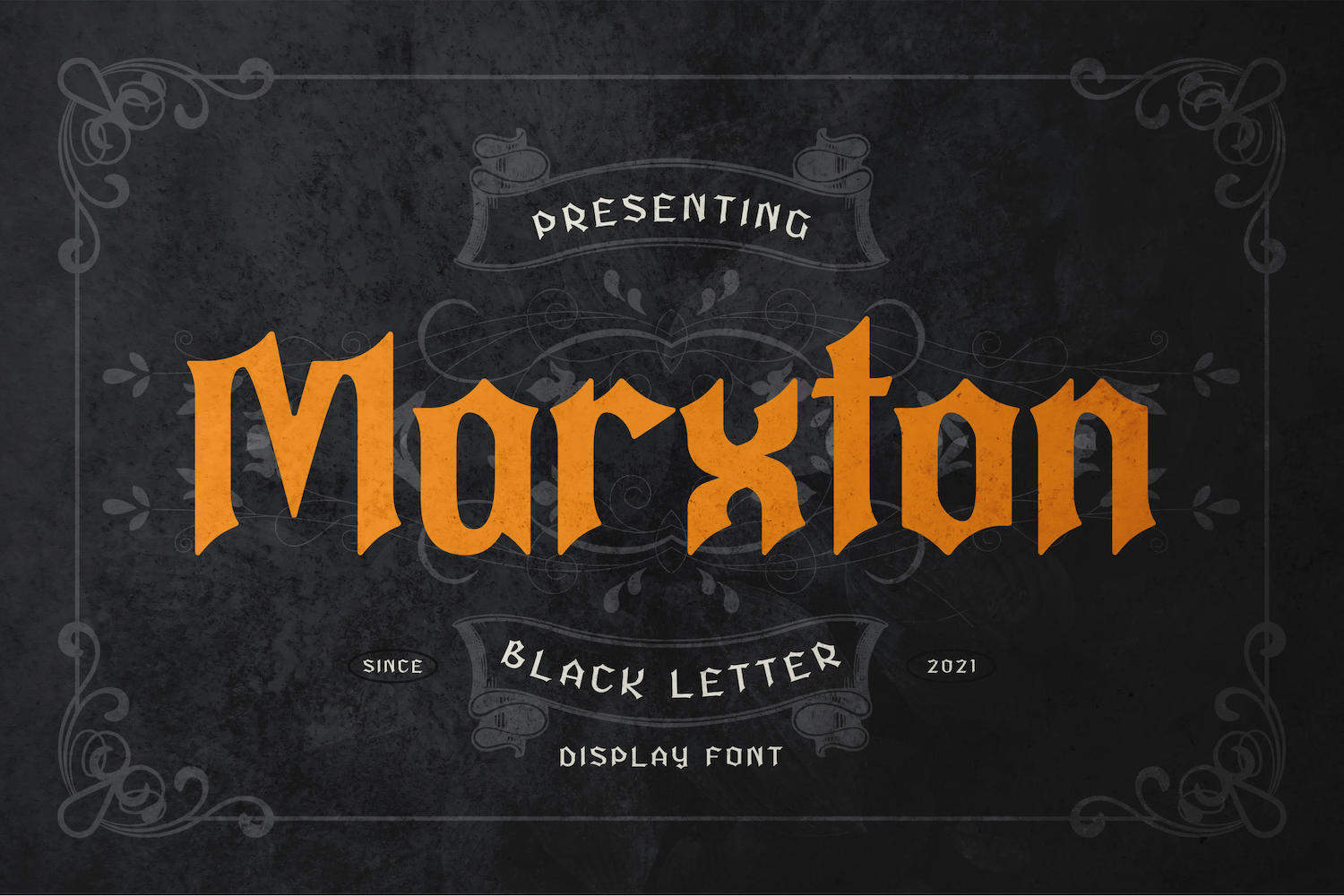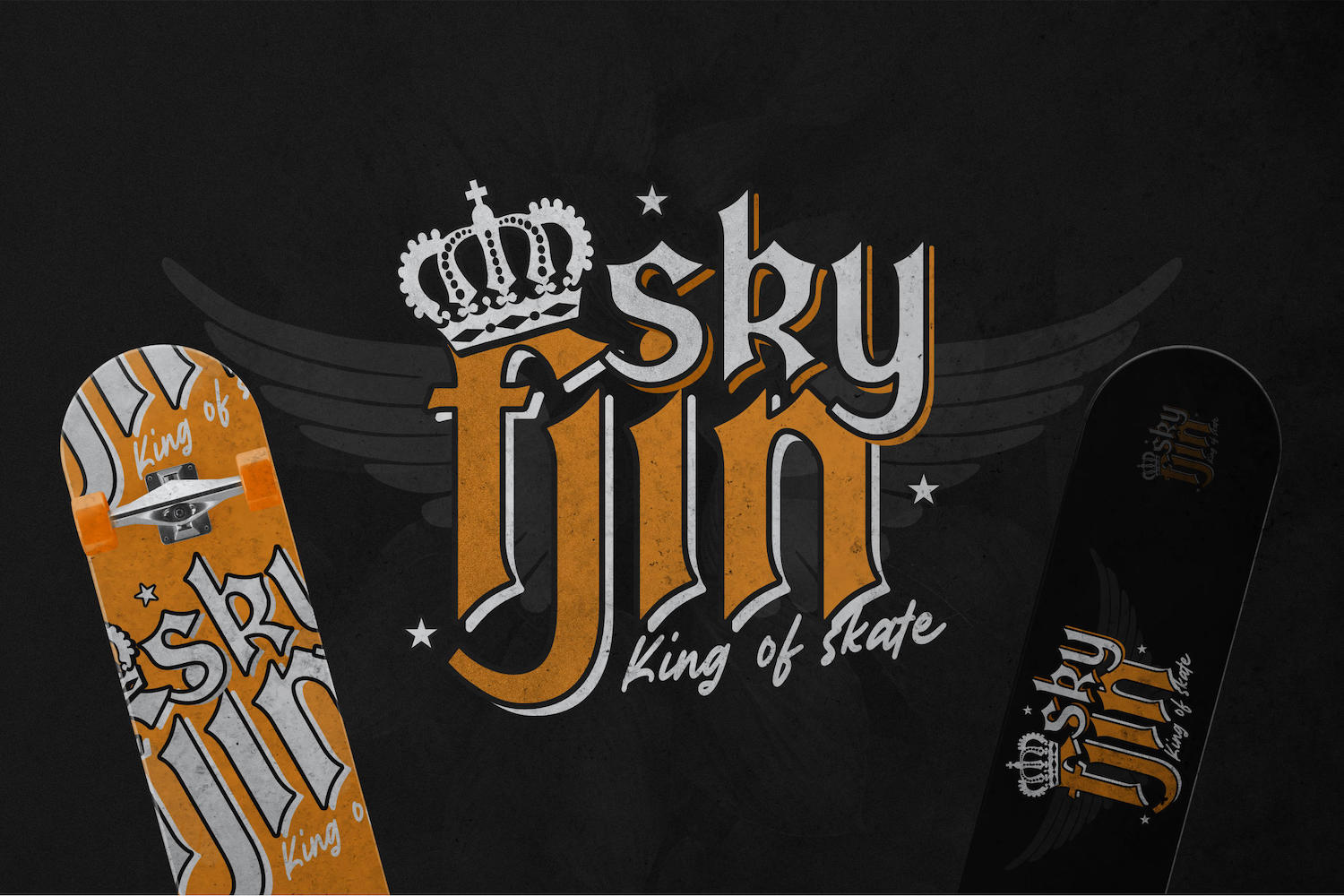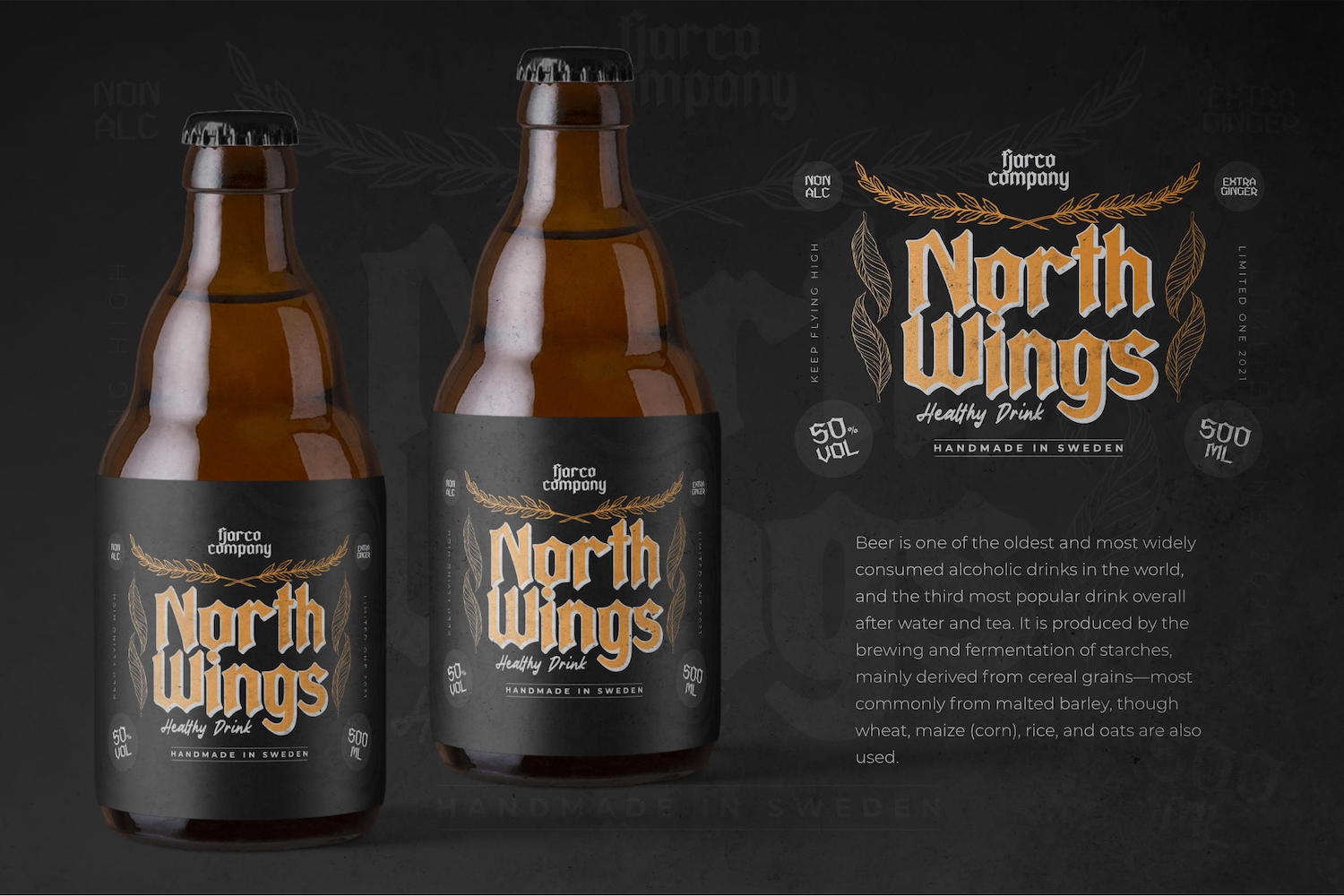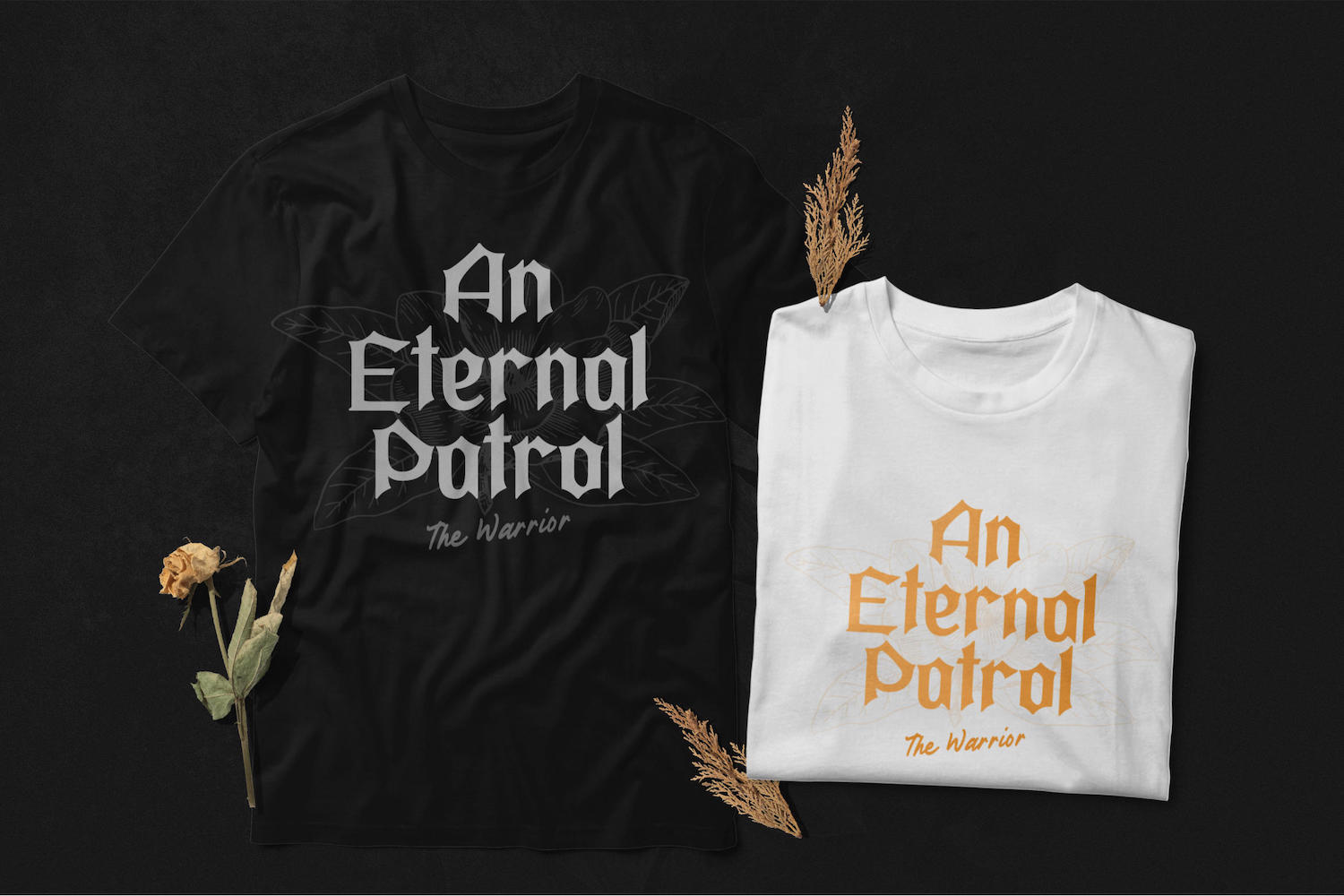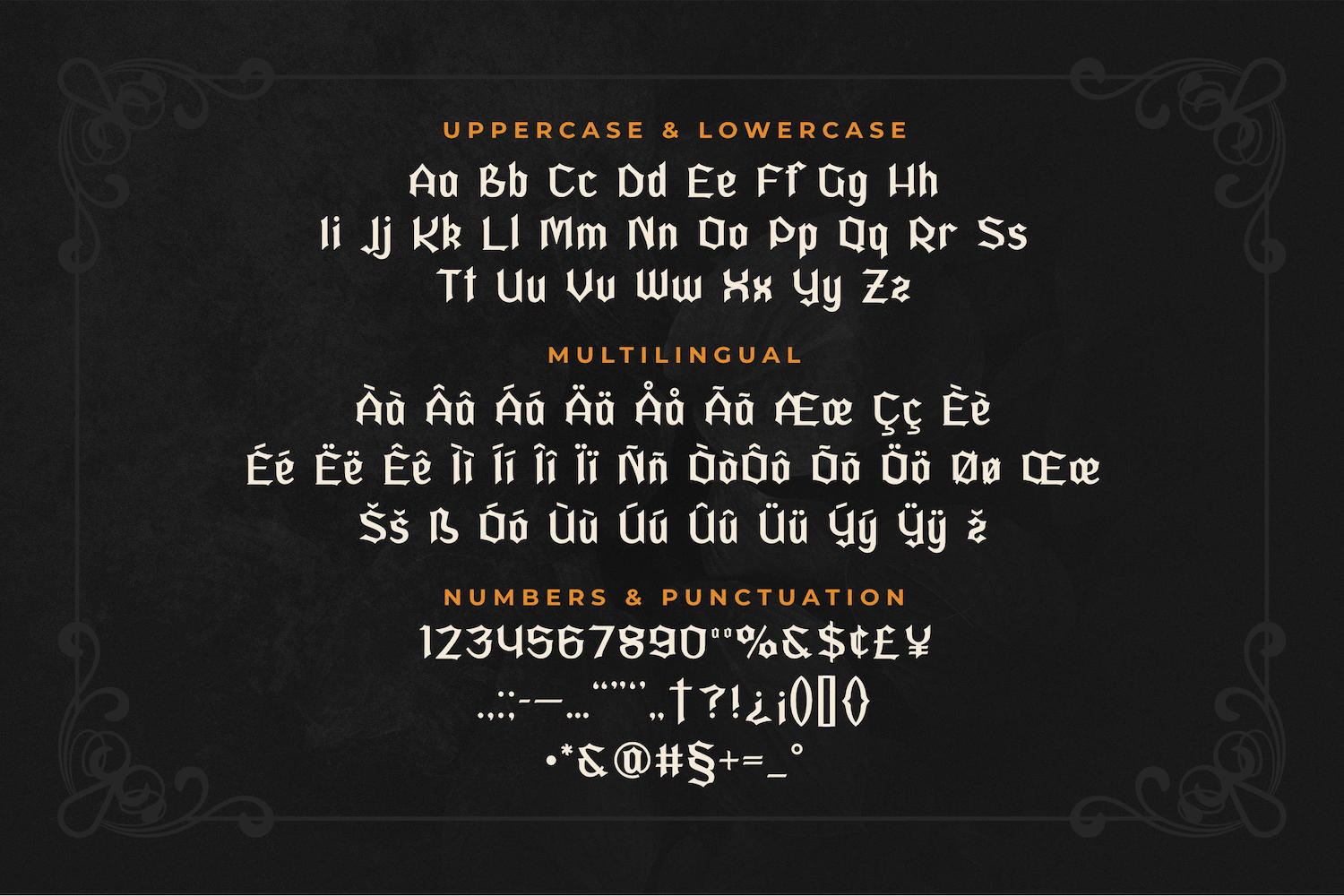
Marxton
Marxton is a powerful blackletter display font that brings bold, medieval-inspired elegance to your design projects. Its sharp, angular strokes and dense character structure evoke historical gravitas, making it an ideal choice for logos, tattoos, merchandise, vintage packaging, and heavy music themes. The texture and gothic nuances within each letter add a handcrafted authenticity, perfect for making dramatic visual impressions.
Designed with both uppercase and lowercase sets, multilingual characters, and a complete range of punctuation, Marxton offers flexibility while maintaining a striking presence. Whether used on posters, beer labels, or apparel branding, this typeface enhances any concept with a touch of rebellion and tradition. Let your titles speak louder and your visuals stand out with Marxton’s fearless blackletter aesthetic.